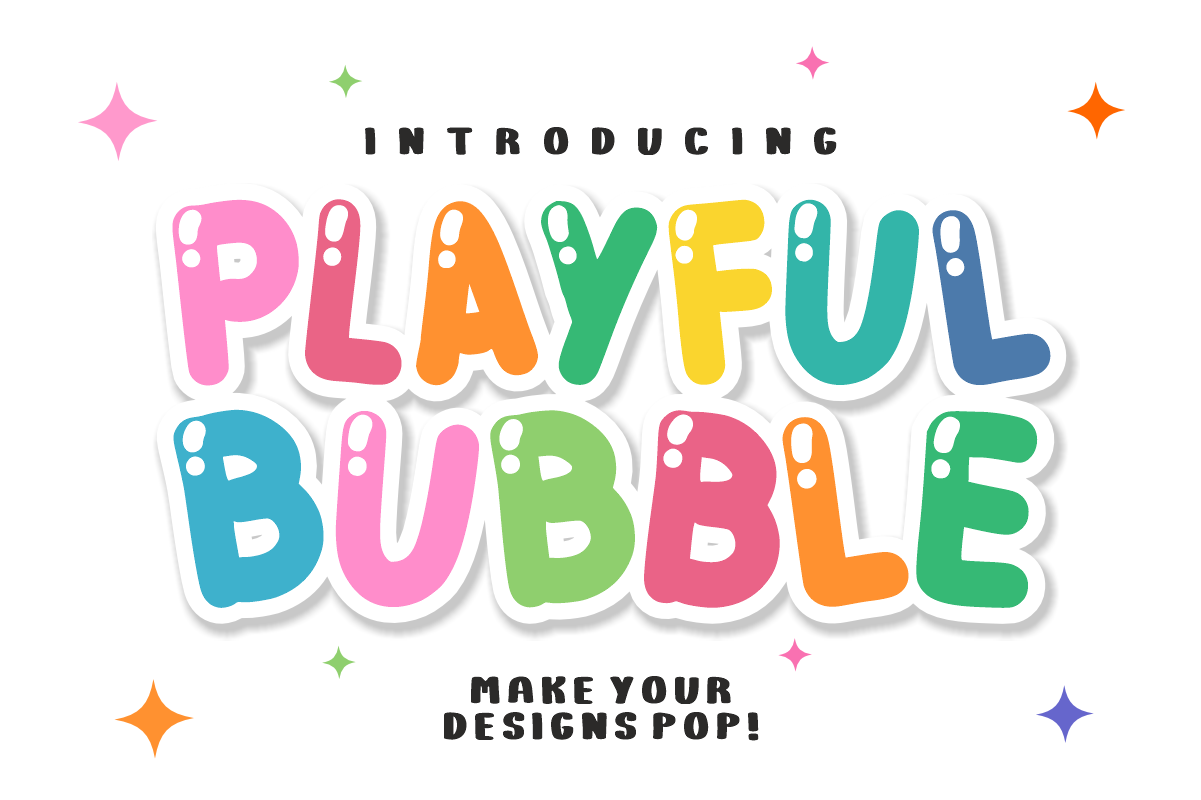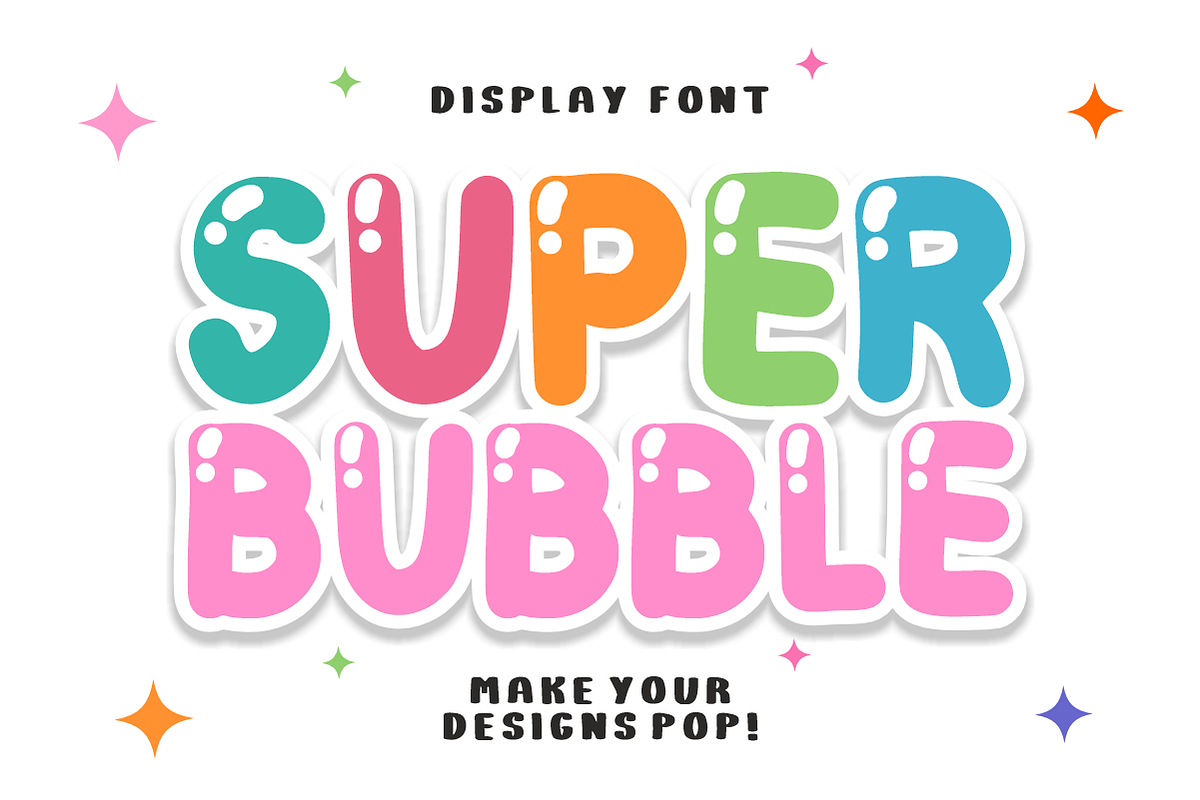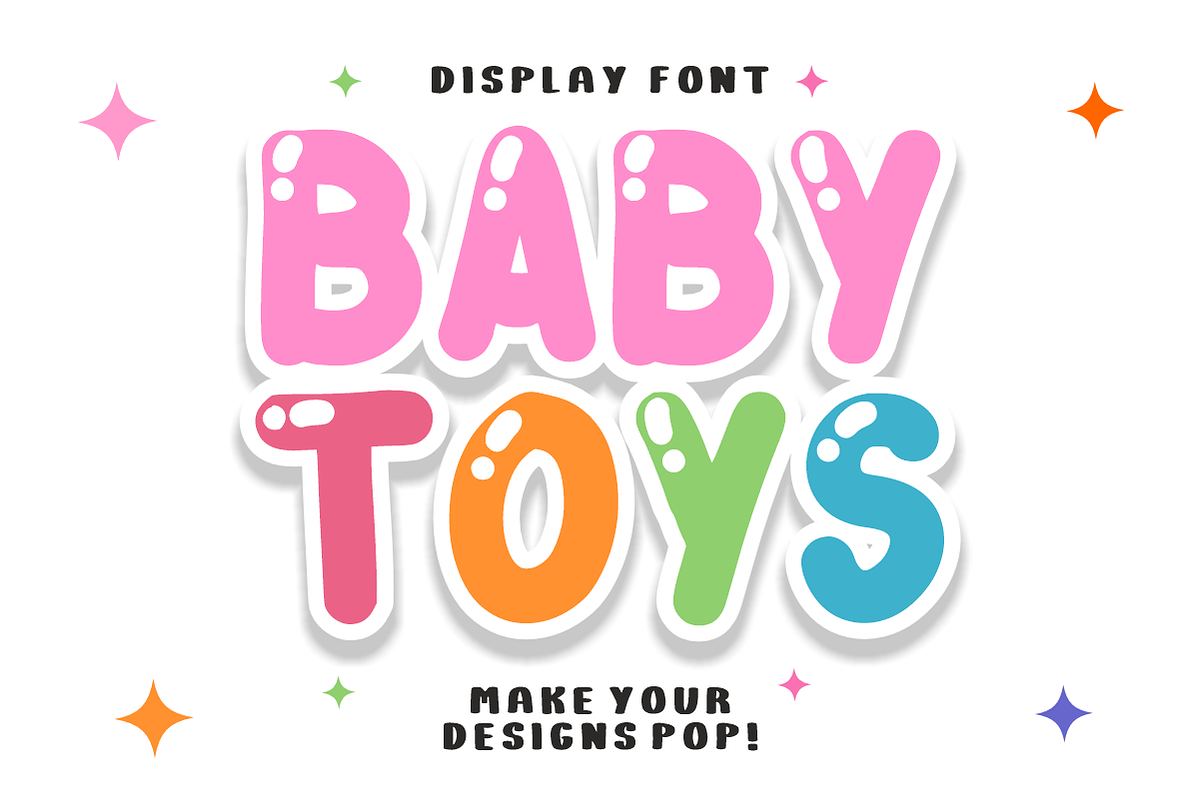
Playful Bubble - Cute Bubble Font
Playful Bubble - Cute Bubbly Display Font
Inject pure joy and bouncy energy into your creative projects with Playful Bubble! Engineered to true perfection to "Make Your Designs Pop!", this ultra-chunky display font features balloon-inspired letterforms with charming, built-in highlight cutouts that mimic real glossy bubbles.
Perfect for modern sticker design, children's branding, and trend-focused crafting, Playful Bubble seamlessly balances a high-energy comic aesthetic with exceptional legibility. It is highly versatile, expressive, and fully optimized for flawless performance across premium digital and print design layouts.
All-Caps Character Set (Chunky, shiny balloon uppercase letters)
Numbers & Basic Punctuation (Essential, simple symbols included)
Die-Cut Stickers, Decals, & Fun Pin Badges 🏷️
Children’s Branding & Playful Logo Design 🎨
Kids' Product Packaging, Toy Labels, & Party Decor 🧸
Cricut, Silhouette, & DIY Sublimation Crafting ✂️
Social Media Graphics & Eye-Catching YouTube Thumbnails 📱